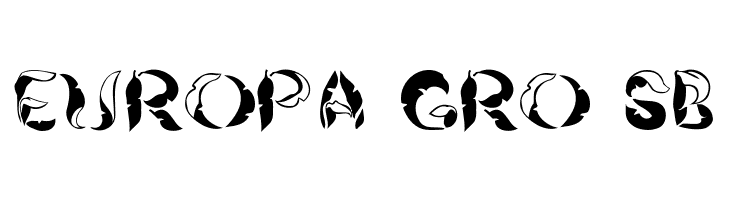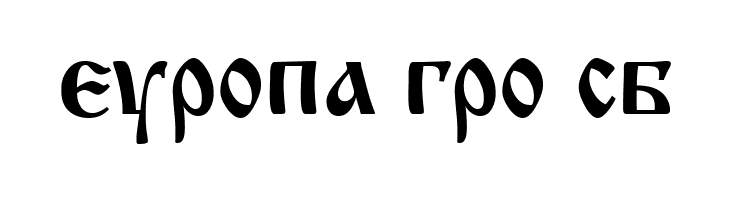
• Alistair morrison demo
A decorative and ornate font with intricate details and flourishes.
• AlistaScript
An elegant script font with flowing, cursive strokes and intricate loops.
• Alit Halloween Regular
Halloween-themed decorative dingbat font with bold, spooky icons.
• Aliters
A bold, expressive handwritten font with dynamic strokes.
• Alitta Regular